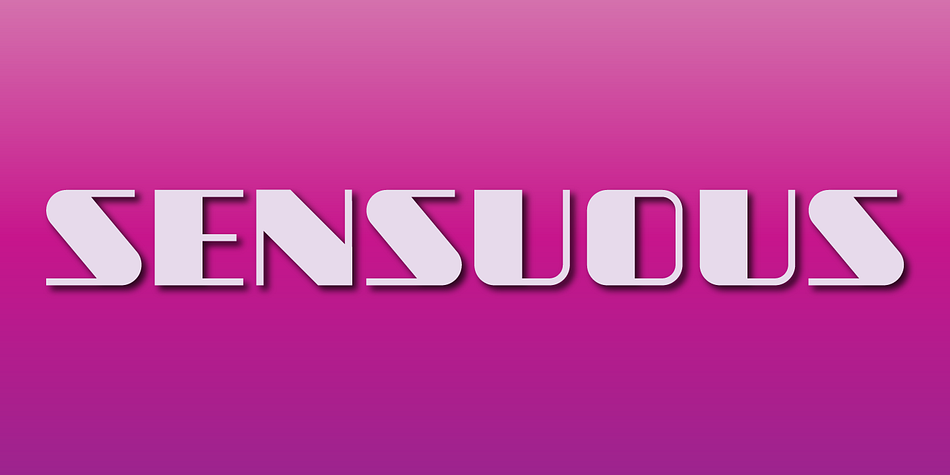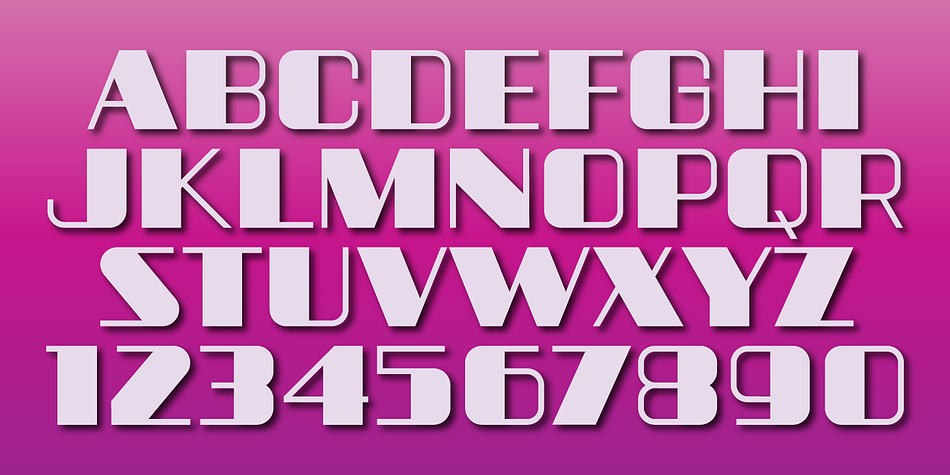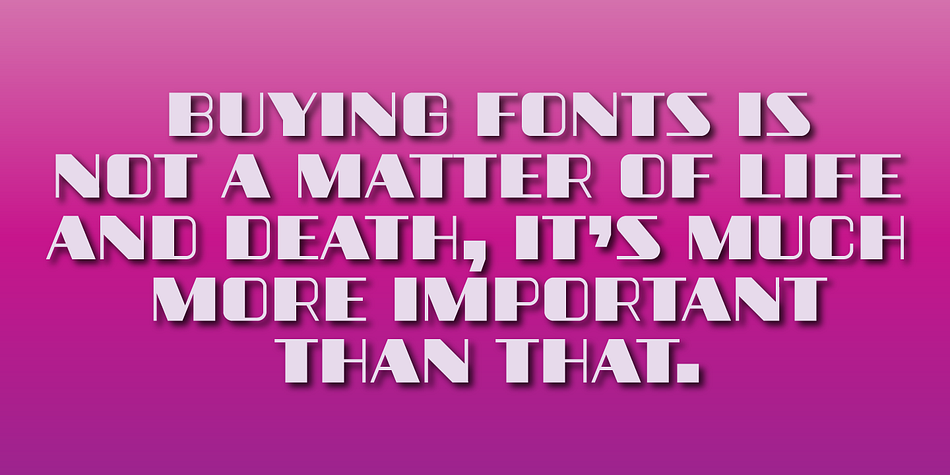
Designed by Gerald Gallo, Sensuous is an art deco and display sans font family published by Gerald Gallo Fonts.
Sensuous is a bold sans serif font with characters that have a very high contrast between thick and thin elements. It is ideal for headlines, titles, branding and small blocks of text.